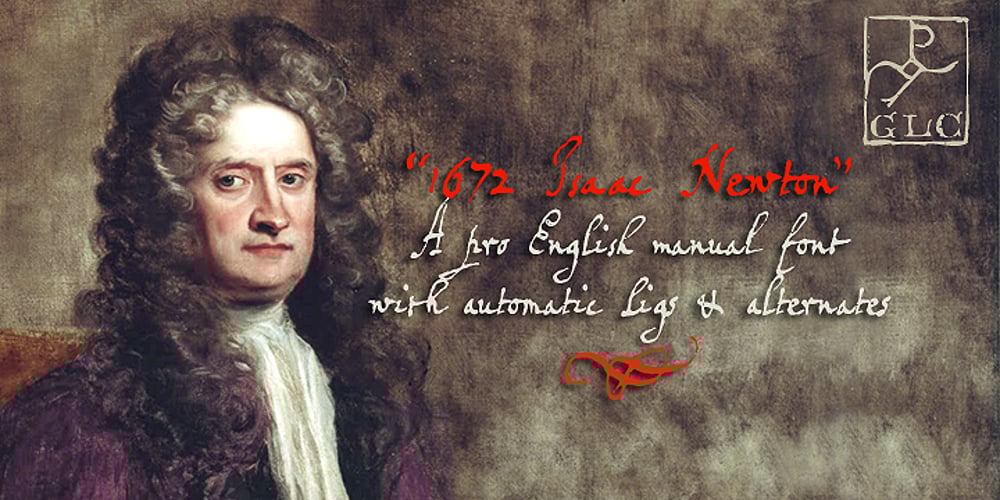
1672 Isaac Newton
1672 Isaac Newton font
1672 Isaac Newton Font Family was designed by published by GLC. 1672 Isaac Newton contains 1 styles and family package options. Isaac Newton, father of the theory of gravity, used several forms of handwriting in his life, in numerous texts about numerous scientific subjects. Here, we propose a handwritten font, using a particularly legible script form, coming from texts written in 1672, the year he presented a new reflecting telescope to the Royal Society. It is a Pro font containing Western, Eastern, Central and Northern European, Icelandic, Baltic, and Turkish diacritics. The alternates and ligatures allow the font to look as closely as possible to the real thing. The features allow OTF software to vary the characters of a word automatically, with no more work than selecting contextual alternates and standard ligatures.